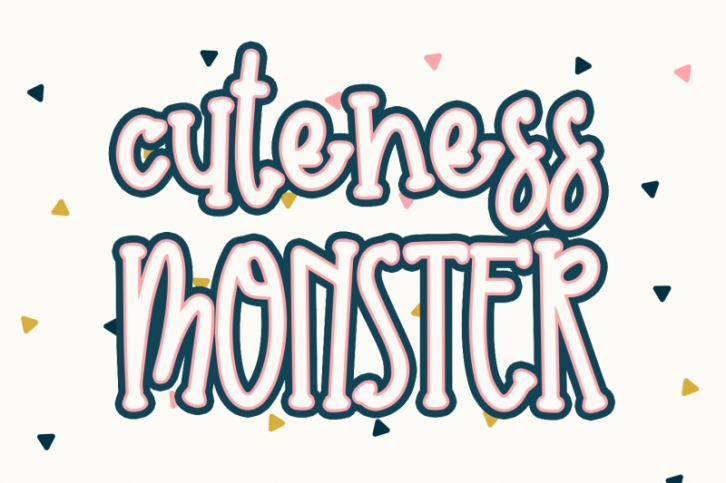
introducing
CUTENESS MONSTER
- crafty serif -
CUTENESS MONSTER is a natural handwritten font created for crafters.
It is great for quotes, branding, packaging, embroidery, cutting, silhouette, social media content and anything of craft project.